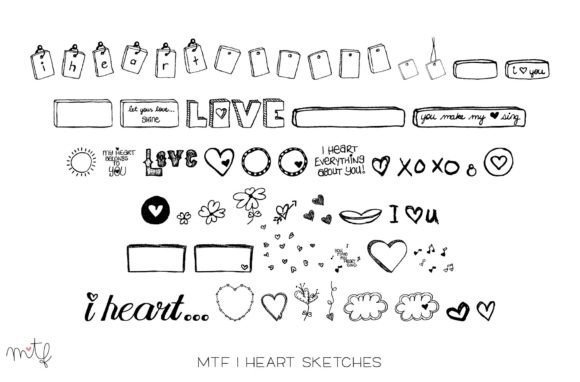
I Heart Sketches Font
About I Heart Sketches Font
Introducing “I Heart Sketches,” a fresh and creative dingbats font that brings a touch of whimsy and charm to your designs. This font features a collection of hand-made sketches, including frames, tags, hearts, words, and more, allowing you to add lovely accents to your writing and creative projects.
With “I Heart Sketches,” you can effortlessly incorporate these hand-drawn elements into your designs, giving them a unique and personalized touch. Whether you’re working on invitations, greeting cards, journal entries, or any other creative endeavor, these sketches will add a delightful and artistic flair.
The font includes a variety of sketches, ranging from intricate frames and borders to playful hearts and decorative elements. Each sketch is meticulously crafted, capturing the essence of hand-drawn art and lending a sense of authenticity and character to your work.
Use these sketches to embellish your writing, adding a whimsical touch to your notes, letters, and doodles. You can create eye-catching headings, borders, or dividers, turning your plain text into a visually appealing composition.
Additionally, the sketches in “I Heart Sketches” can be used as decorative elements in various projects. Whether you want to add a charming tag to a gift, frame a special photo, or create unique artwork, these sketches provide endless possibilities for creative expression.
Whether you’re a designer, artist, or simply someone who enjoys adding a personal touch to your creations, “I Heart Sketches” offers a fresh and creative way to enhance your writing and designs. Let these hand-made sketches inspire you and bring a playful and artistic dimension to your projects.
Discover the charm of “I Heart Sketches” and let your creativity flow by incorporating these lovely hand-drawn sketches into your writing, artwork, and creative endeavors. Add a touch of whimsy and personalization to your designs with these unique and delightful dingbats.